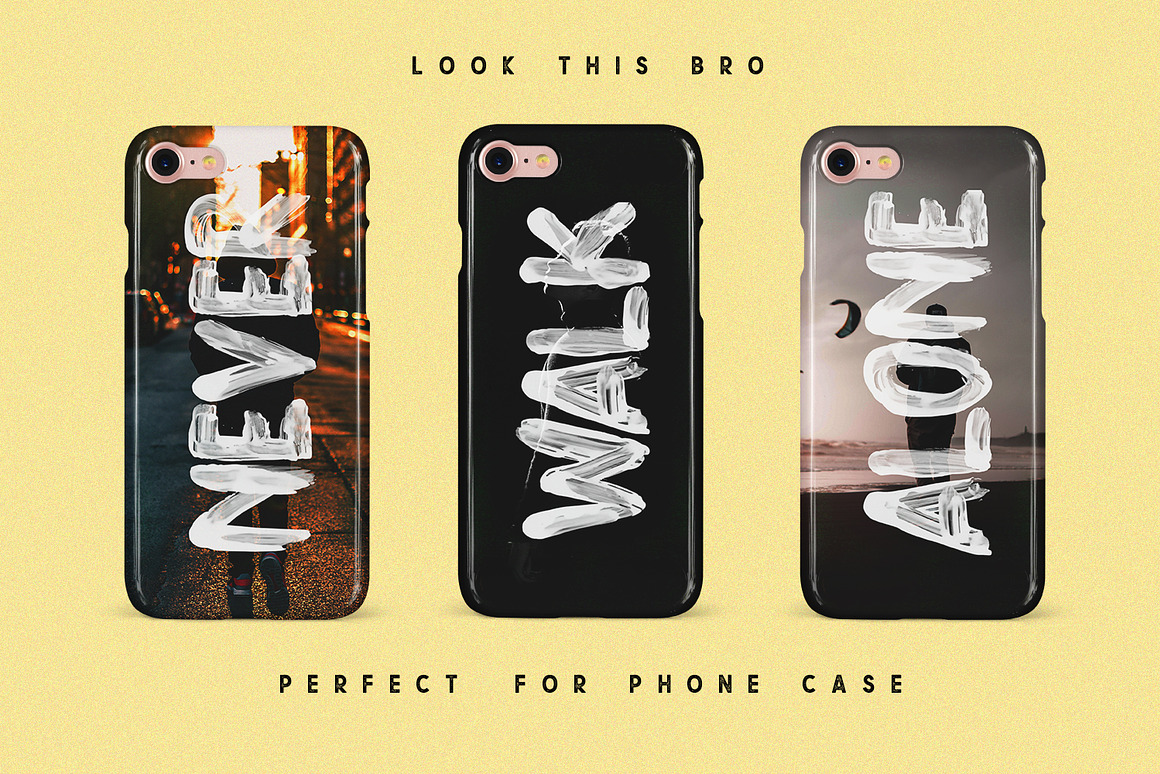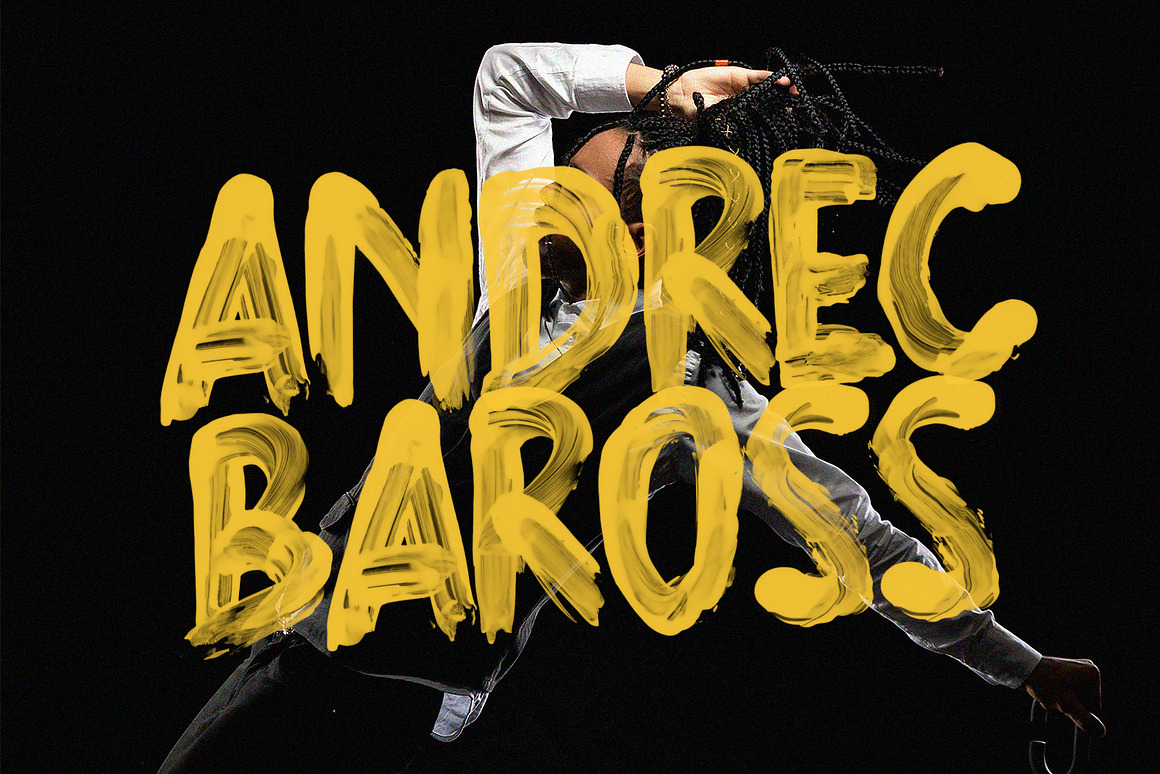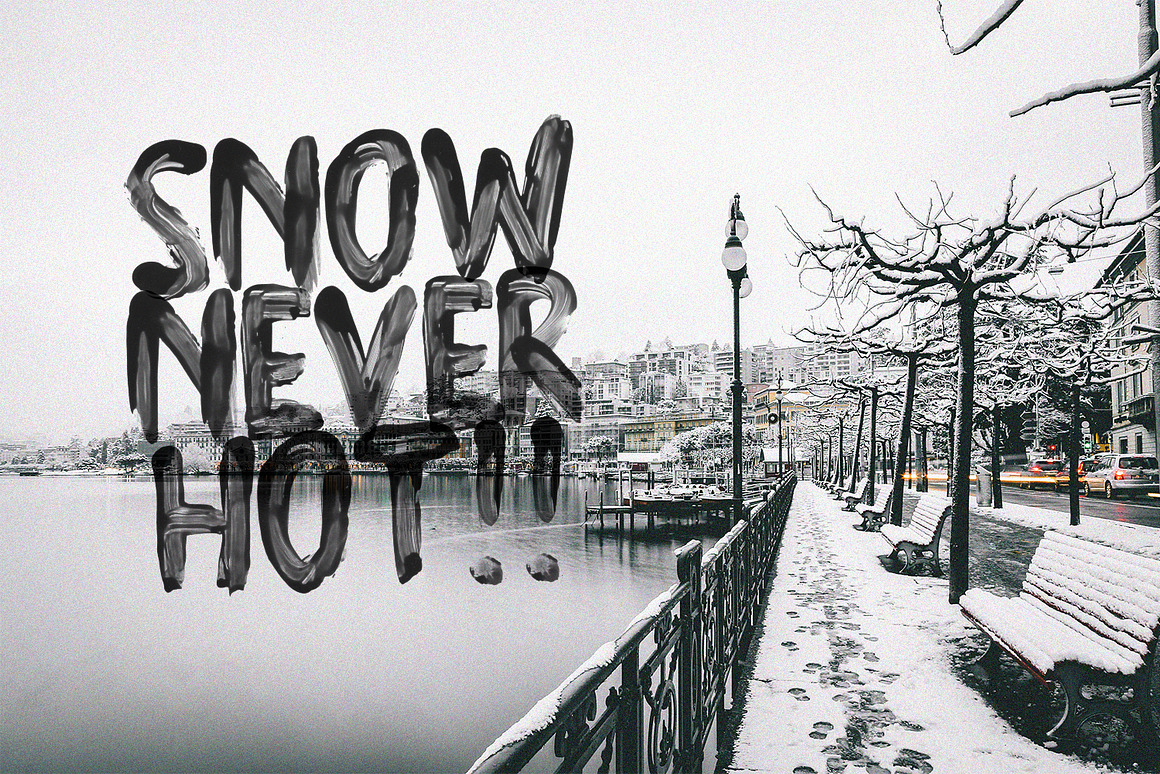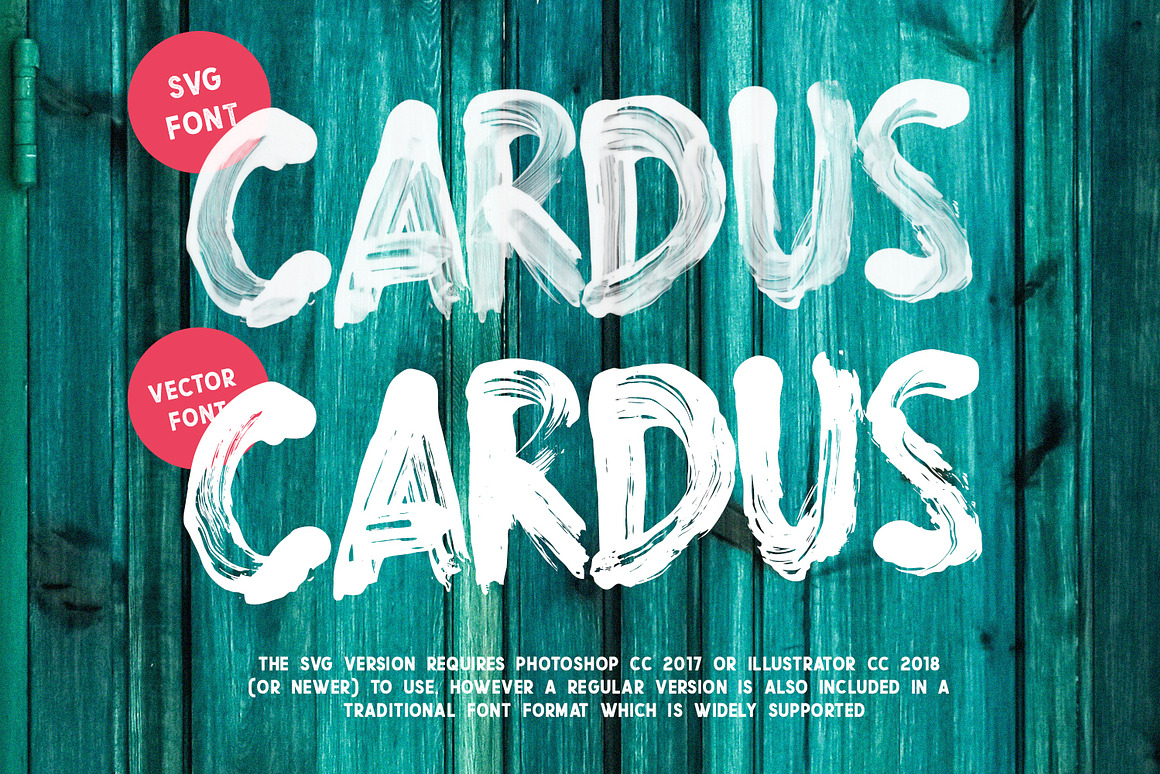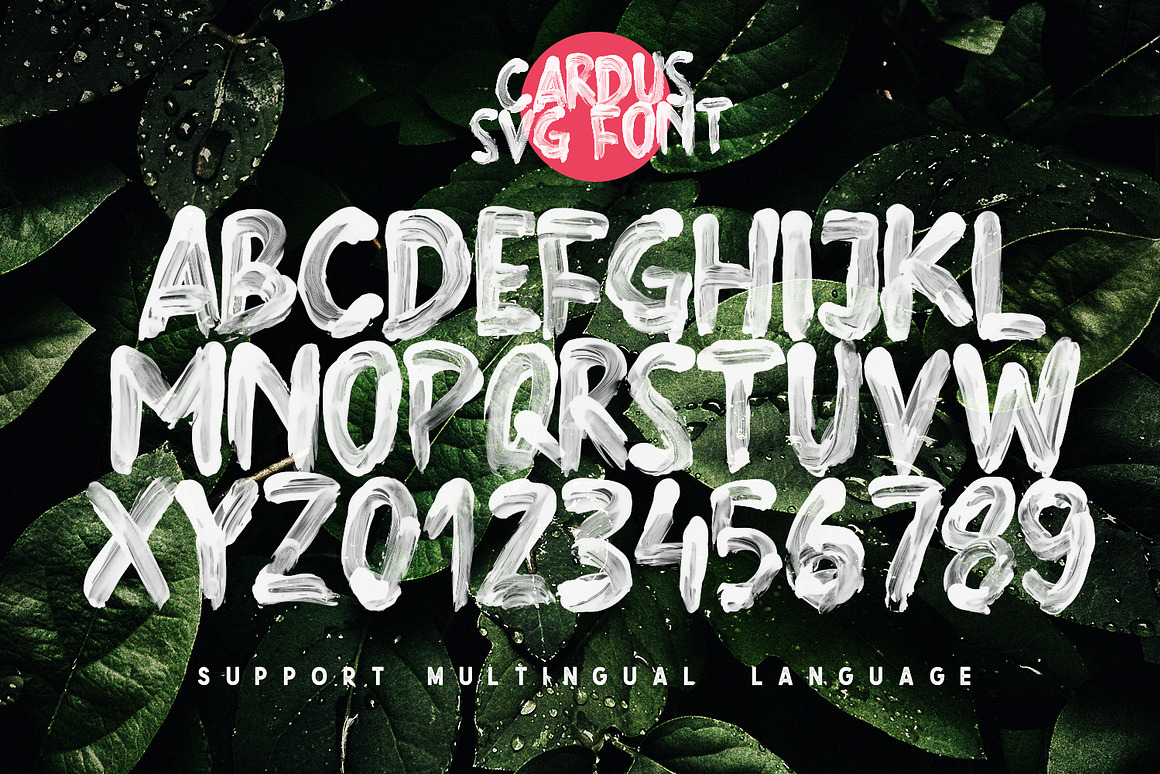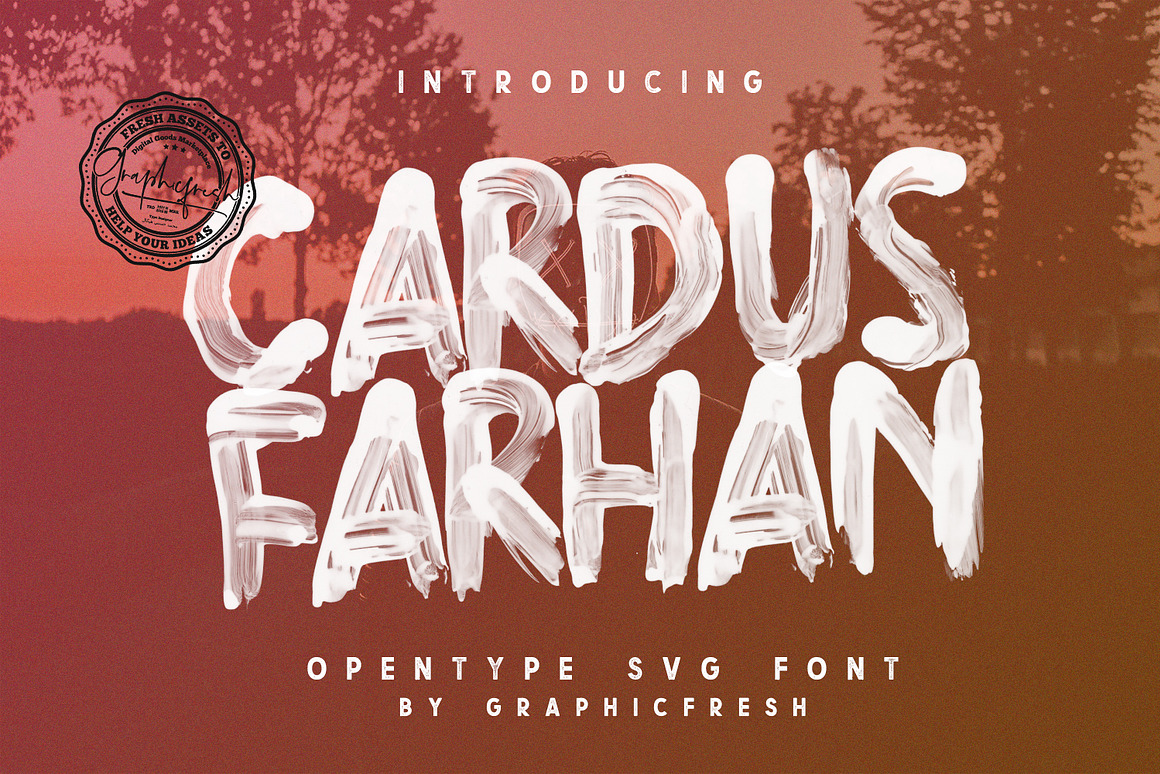
Cardus Brush SVG Font
Cardus Brush SVG Font is perfect for logos, branding, poster designs, social media graphics, and creative packaging. Its hand-drawn brush style with SVG color effects adds a vibrant, artistic touch to any project.
What makes Cardus Brush SVG Font exciting is its expressive, textured strokes that bring depth, personality, and energy to your designs. The font’s dynamic appearance ensures your text stands out with a creative flair.
The Cardus Brush SVG Font family includes Regular, Bold, and Color SVG variations, offering designers flexibility to craft visually striking and unique typographic compositions.